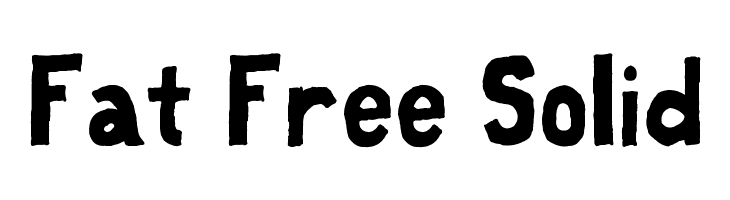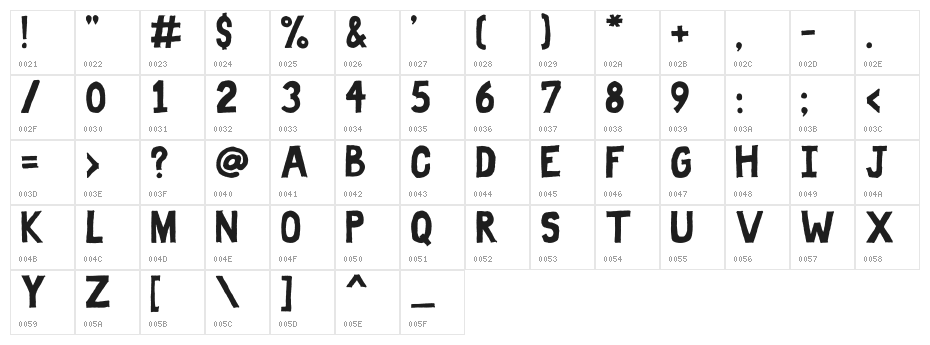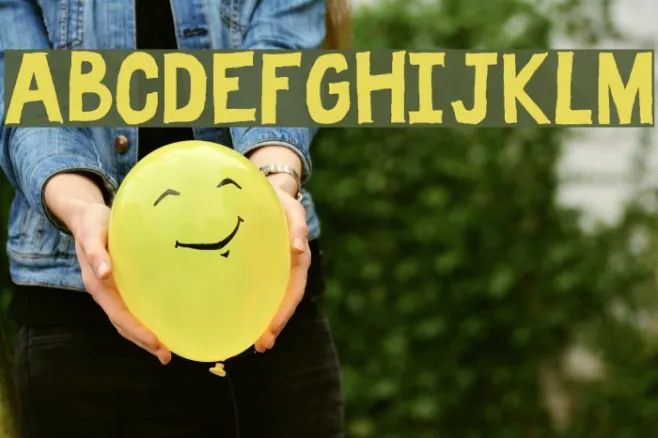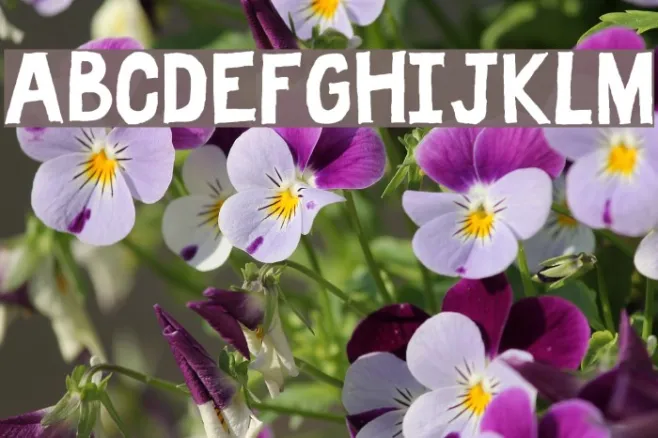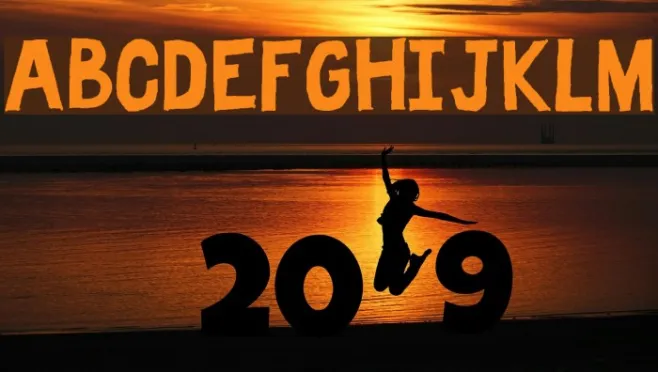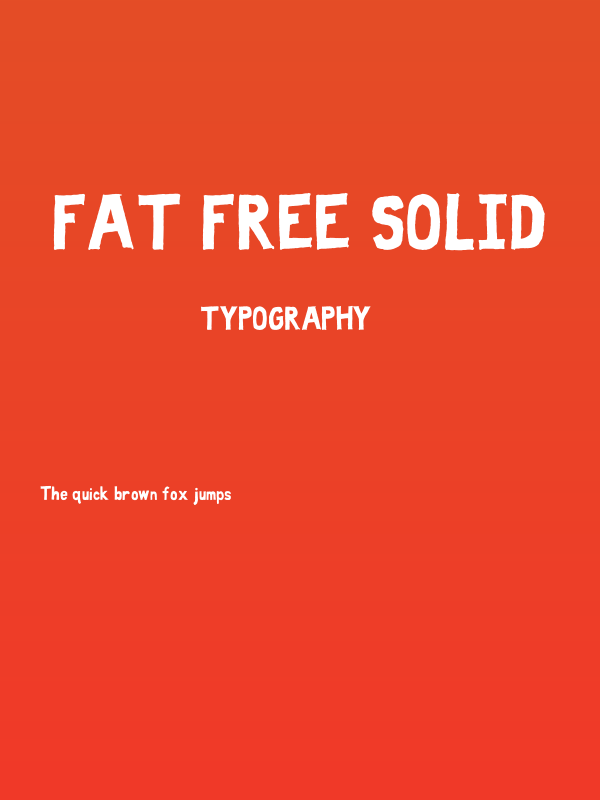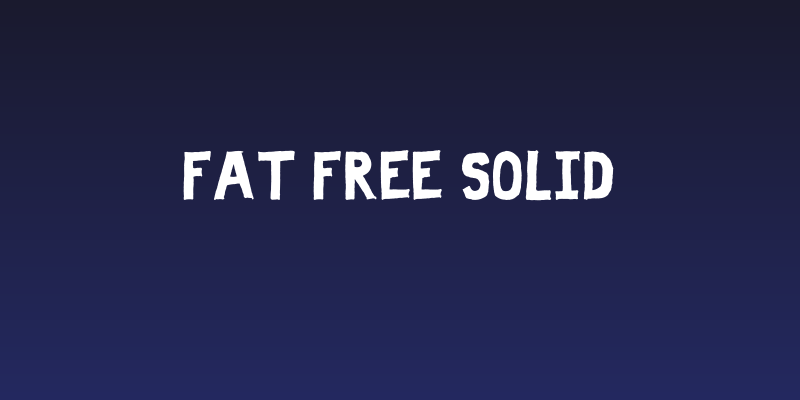
Fat Free Solid Font
Fat Free Solid Description
This font features a bold and playful design with a hand-drawn aesthetic. The characters are slightly irregular, giving it a casual and organic feel. The strokes are thick and consistent, creating a strong visual impact. The uppercase and lowercase letters maintain a cohesive style, while the numerals and special characters complement the overall look. This font's unique character makes it suitable for projects that require a touch of creativity and informality.
| Overall Style | Playful, Hand-drawn |
| Proposed Projects | Ideal for posters, children's books, creative branding, and casual invitations. |